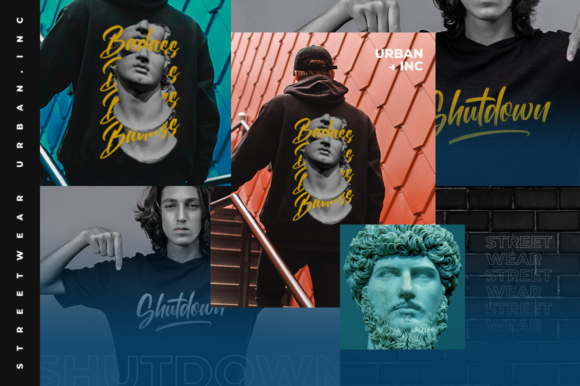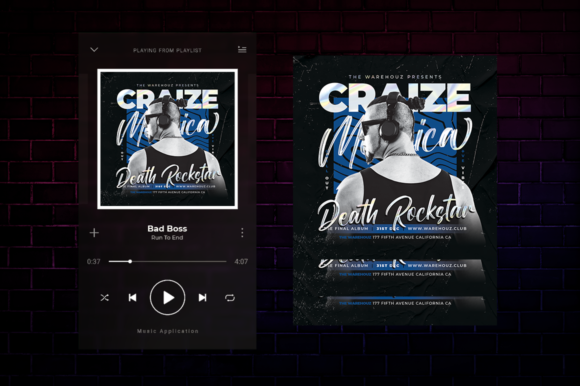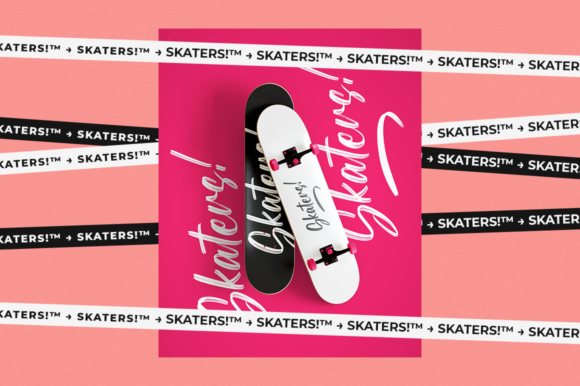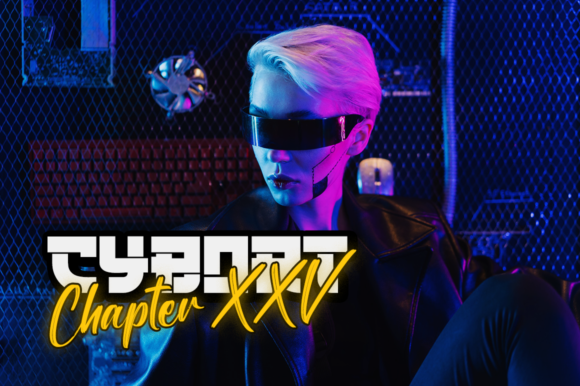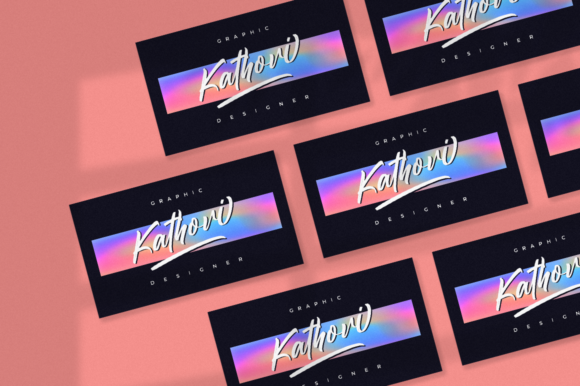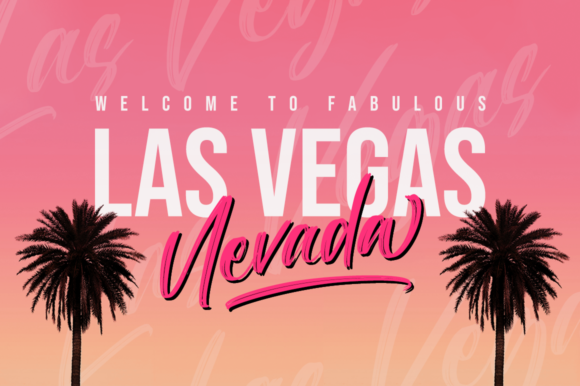
Bring Your Creative Vision to Life with Austtone Font
You know that moment when you finally have an idea for a project, and everything else fades away? The thrill of creativity takes over, and you can’t wait to bring your vision to life. Whether it’s a beautifully designed poster, a stunning social media graphic, or a handwritten love letter, the right font can make all the difference.
That’s where Austtone Font comes in – a gorgeous, elegant brushed script font that’s perfect for adding a touch of sophistication to your designs. Whether you’re looking for fonts for Instagram or calligraphy scripts for DIY projects, Austtone Font will help you turn your creative ideas into stunning works of art. As a designer, you know how valuable it is to have a reliable, versatile font that can elevate your projects and leave a lasting impression.
- Unique Characteristics: Austtone Font features a unique blend of traditional and modern elements, with intricate details and subtle nuances that set it apart from other fonts.
- Legibility and Readability: Austtone Font is designed for optimal legibility and readability, making it suitable for a wide range of applications, from body text to headlines.
- Font Family: Austtone Font is a single-family font, with multiple weights and styles available, including light, regular, bold, and italic.
- Language Support: Austtone Font supports a wide range of languages, including Latin, Cyrillic, and Greek alphabets, making it a versatile choice for global applications.
Austtone Font Review
Overall, I think Austtone Font is a great addition to any designer’s toolkit, but it’s not without its flaws.
- Unique style: Austtone Font has a distinctive, hand-drawn feel that sets it apart from other fonts.
- High legibility: The font is easy to read, even at smaller sizes, making it perfect for body text.
- Good for creative projects: Austtone Font’s playful, whimsical feel makes it ideal for projects that require a touch of personality.
- Limited language support: Austtone Font may not support all languages, which could be a problem for international projects.
- Not ideal for formal or professional projects: The font’s casual, creative feel may not be suitable for projects that require a more formal tone.
Austtone Font is a great choice for designers who want to add a touch of personality to their projects. While it may not be perfect for every project, it’s a versatile font that can be used in a variety of contexts. With its unique style and high legibility, Austtone Font is definitely worth considering for your next design project.
Tips for Getting the Most Out of Austtone Font
Austtone Font is a versatile font that can be used in a variety of contexts. Here are some tips for getting the most out of it:
Use Austtone Font for titles, headings, and other prominent text elements to add a touch of elegance and sophistication.
Experiment with different font sizes and styles to create visual interest and hierarchy in your design.
Pair Austtone Font with other fonts or design elements to create a unique and cohesive look.
Austtone Font is commonly used in:
Business and corporate designs, such as logos, brochures, and presentations.
Wedding and event invitations, stationery, and decor.
Editorial and publishing designs, such as book covers and magazine layouts.